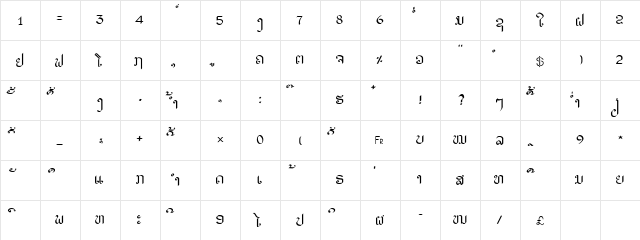
alice_3 Medium
Design Context for alice_3 Typeface
alice_3 offers clean, dependable letterforms without strong stylistic allegiance, making it a practical choice for designers who need flexibility.